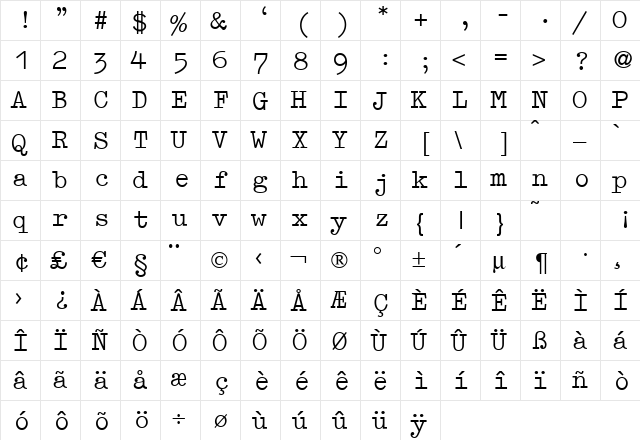
GermanTypewriter Regular
Design Context for GermanTypewriter Typeface
GermanTypewriter uses fixed-width spacing throughout, giving it the structured, systematic character associated with coding environments and technical documentation.